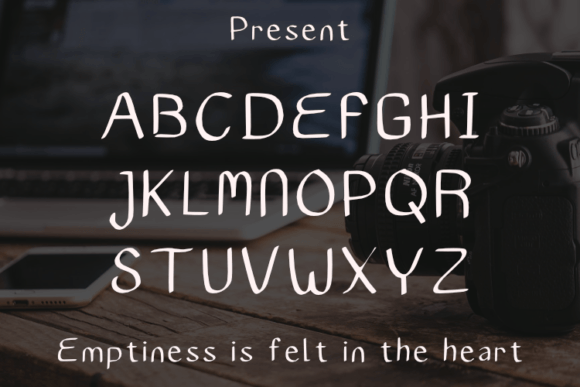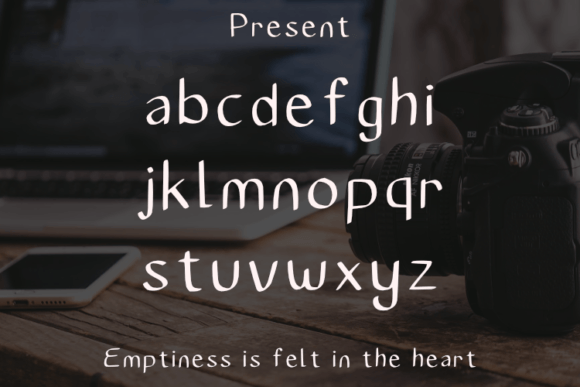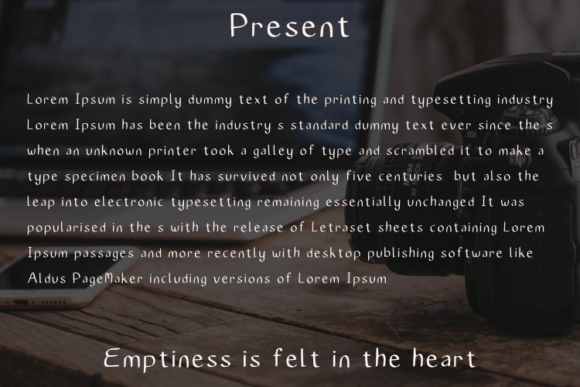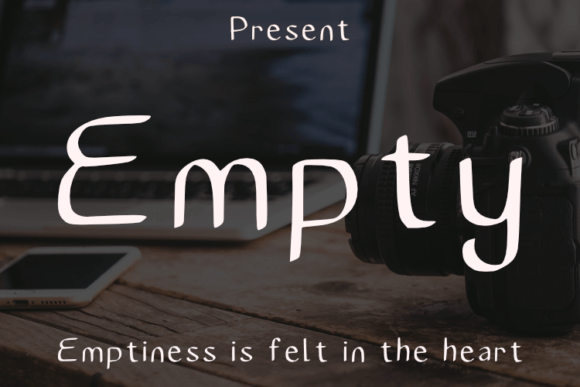
Introducing Empty Font: The Ultimate Sans Serif Typeface for Modern Designs
In the world of typography, a font can make or break a design. With the rise of modern and sleek designs, the demand for unique and elegant typefaces has increased. This is where Empty Font comes in – a sans serif typeface that boasts a distinctive style and a luxurious look. In this article, we’ll dive into the world of Empty Font and explore its features, uses, and benefits for designers and crafters.
What is Empty Font?
Empty Font is a sans serif typeface that has taken the design world by storm. Its clean and modern lines make it perfect for a wide range of applications, from elegant logos to fashion brand designs. The font’s unique style is characterized by its geometric shapes and carefully crafted lines, giving it a sophisticated and luxurious feel.
Features of Empty Font
So, what makes Empty Font stand out from the rest? Here are some of its key features:
• Unique Style: Empty Font has a distinctive style that sets it apart from other sans serif typefaces. Its geometric shapes and modern lines give it a fresh and contemporary look.
• Modern Look: The font’s clean and sleek design makes it perfect for modern designs, from logos to magazine layouts.
• Elegant and Luxurious: Empty Font’s sophisticated feel makes it ideal for high-end designs, such as luxury brands, fashion magazines, and elegant logos.
• Versatile: The font is versatile and can be used for a wide range of applications, from book and movie title designs to clothing and quote designs.
Uses of Empty Font
Empty Font is a versatile typeface that can be used for various design projects. Here are some of the ways you can use Empty Font:
• Elegant Logos: Create stunning logos for luxury brands, fashion companies, and high-end products with Empty Font.
• Book and Movie Title Designs: Use Empty Font to create eye-catching title designs for books, movies, and TV shows.
• Fashion Brands: Empty Font is perfect for fashion brand designs, from clothing labels to magazine layouts.
• Magazines and Journals: Use Empty Font to create sleek and modern magazine layouts, perfect for fashion, lifestyle, and luxury publications.
• Clothing and Apparel: Create stylish clothing labels, tags, and packaging with Empty Font.
• Quote Designs: Use Empty Font to create inspiring quote designs for social media, posters, and prints.
Benefits of Using Empty Font
So, why should you use Empty Font for your design projects? Here are some benefits:
• Stand Out: Empty Font’s unique style and modern look will help your designs stand out from the crowd.
• Professional Look: The font’s elegant and luxurious feel will give your designs a professional and high-end look.
• Versatility: Empty Font’s versatility means you can use it for a wide range of design projects, from logos to magazine layouts.
• Easy to Read: The font’s clean lines and geometric shapes make it easy to read, even at small sizes.
Author Eric Kusuma
In conclusion, Empty Font is a game-changer for designers and crafters looking for a unique and elegant sans serif typeface. Its modern look, luxurious feel, and versatility make it perfect for a wide range of design projects, from elegant logos to fashion brand designs. With Empty Font, you can create stunning designs that will leave a lasting impression.